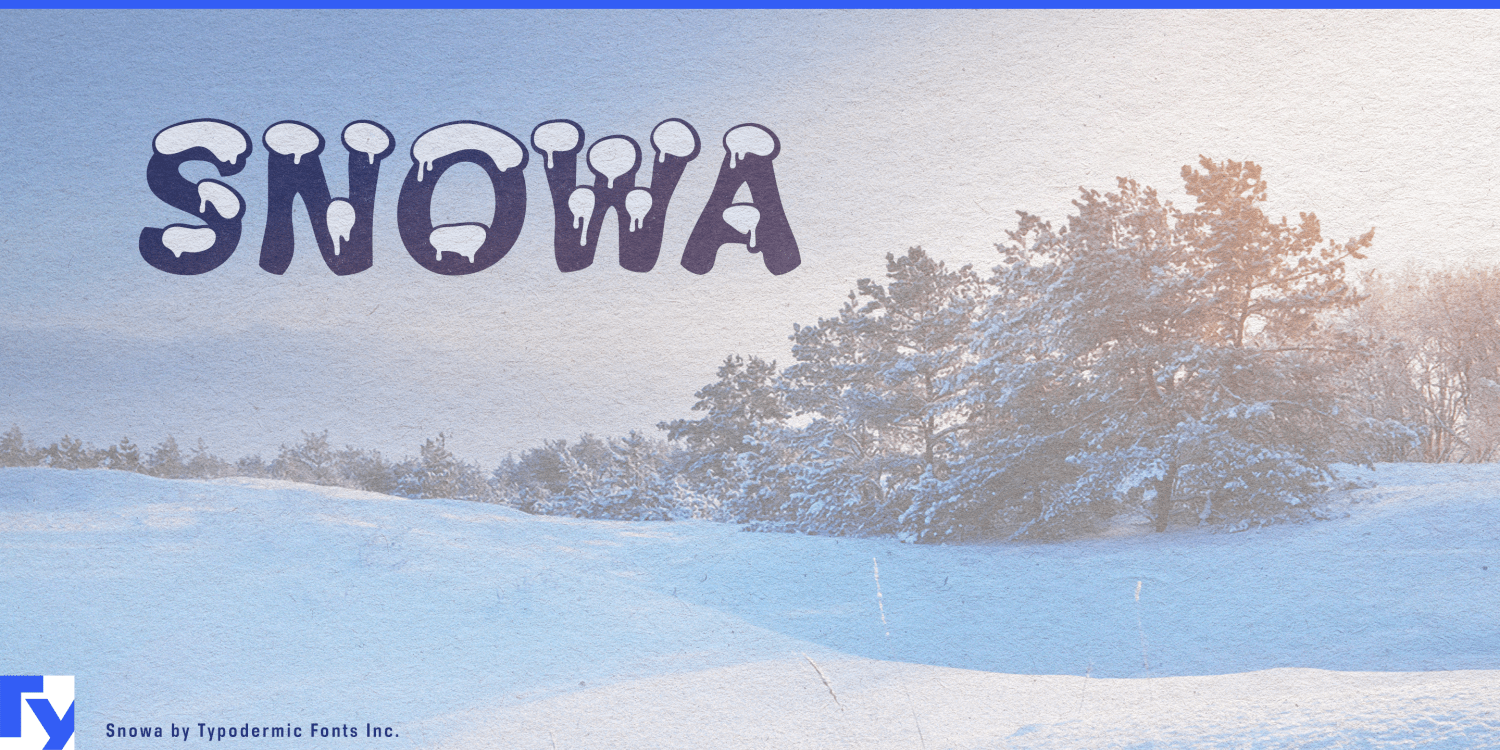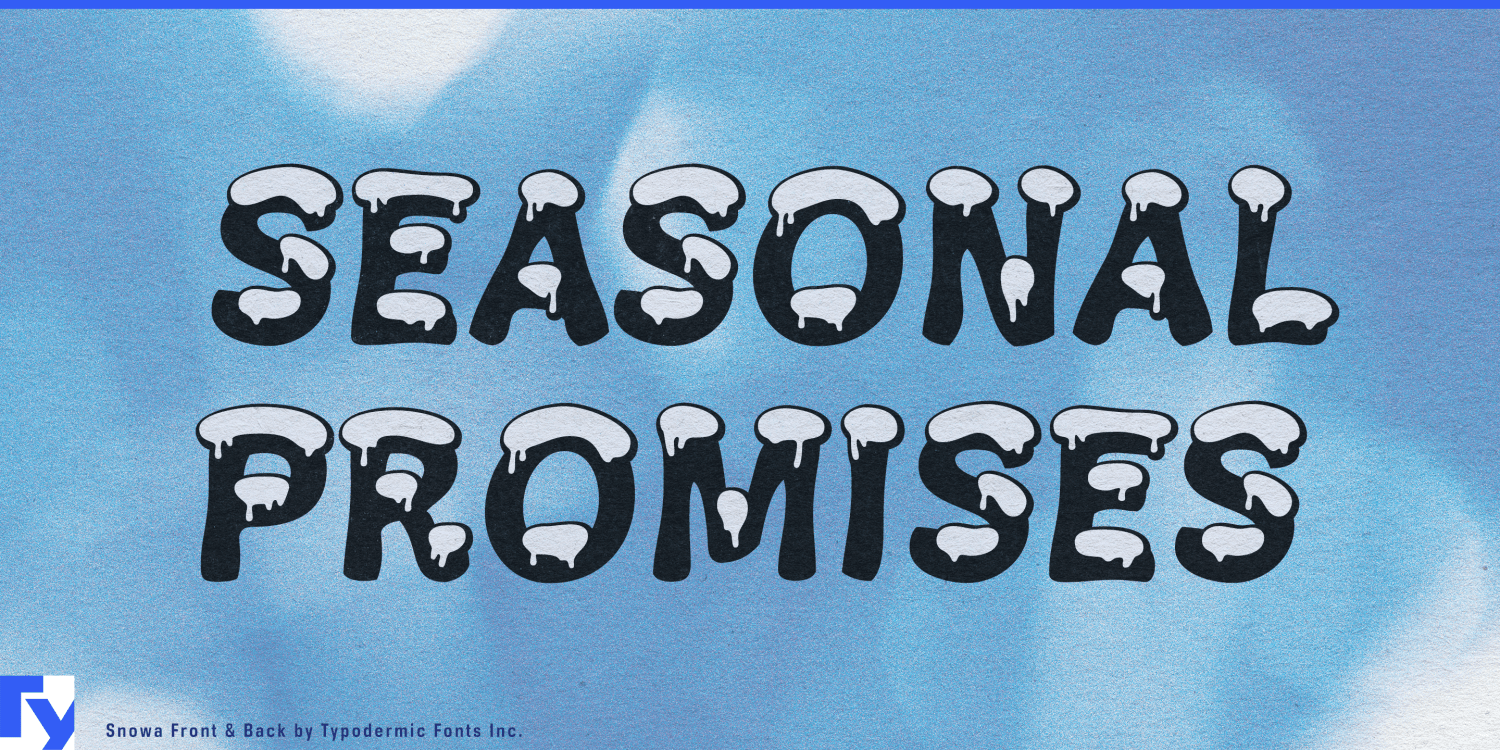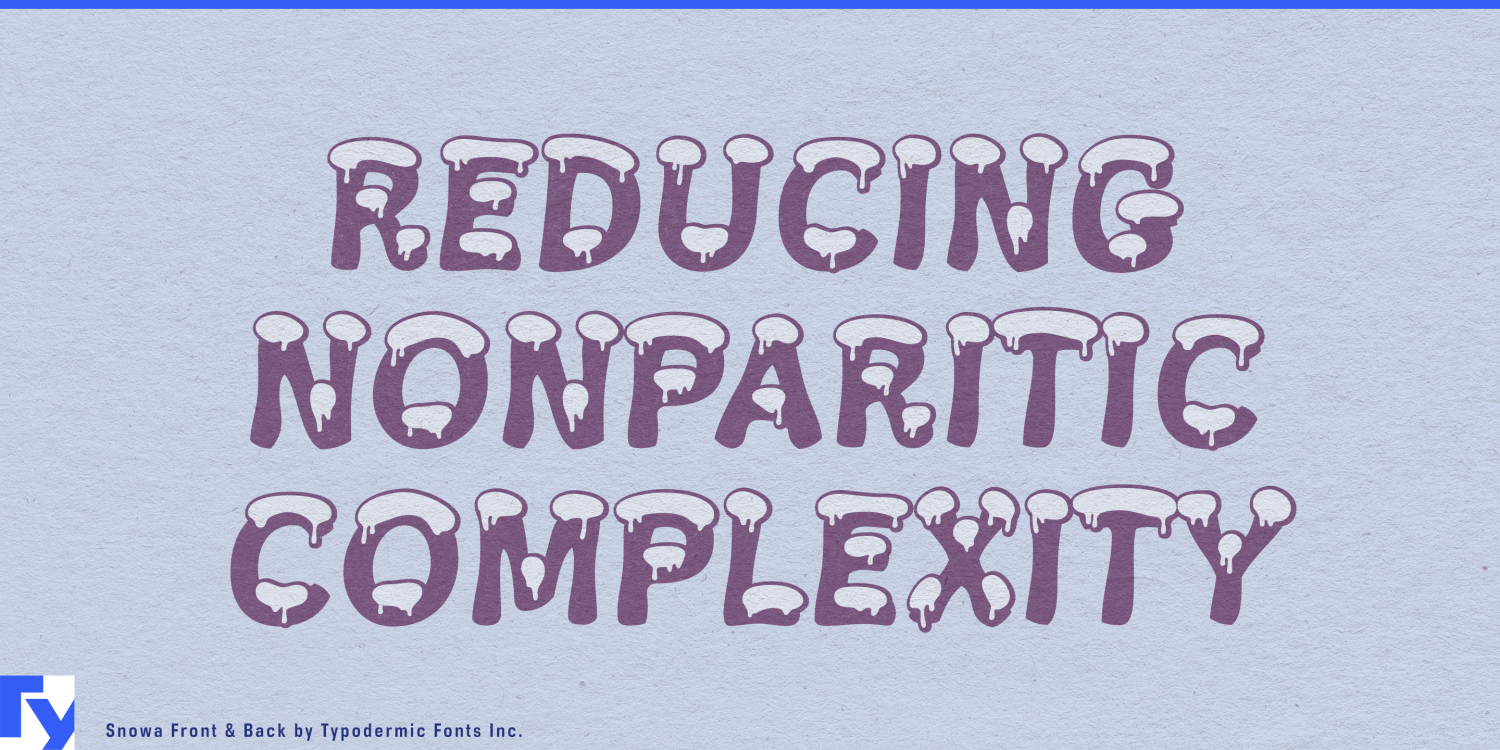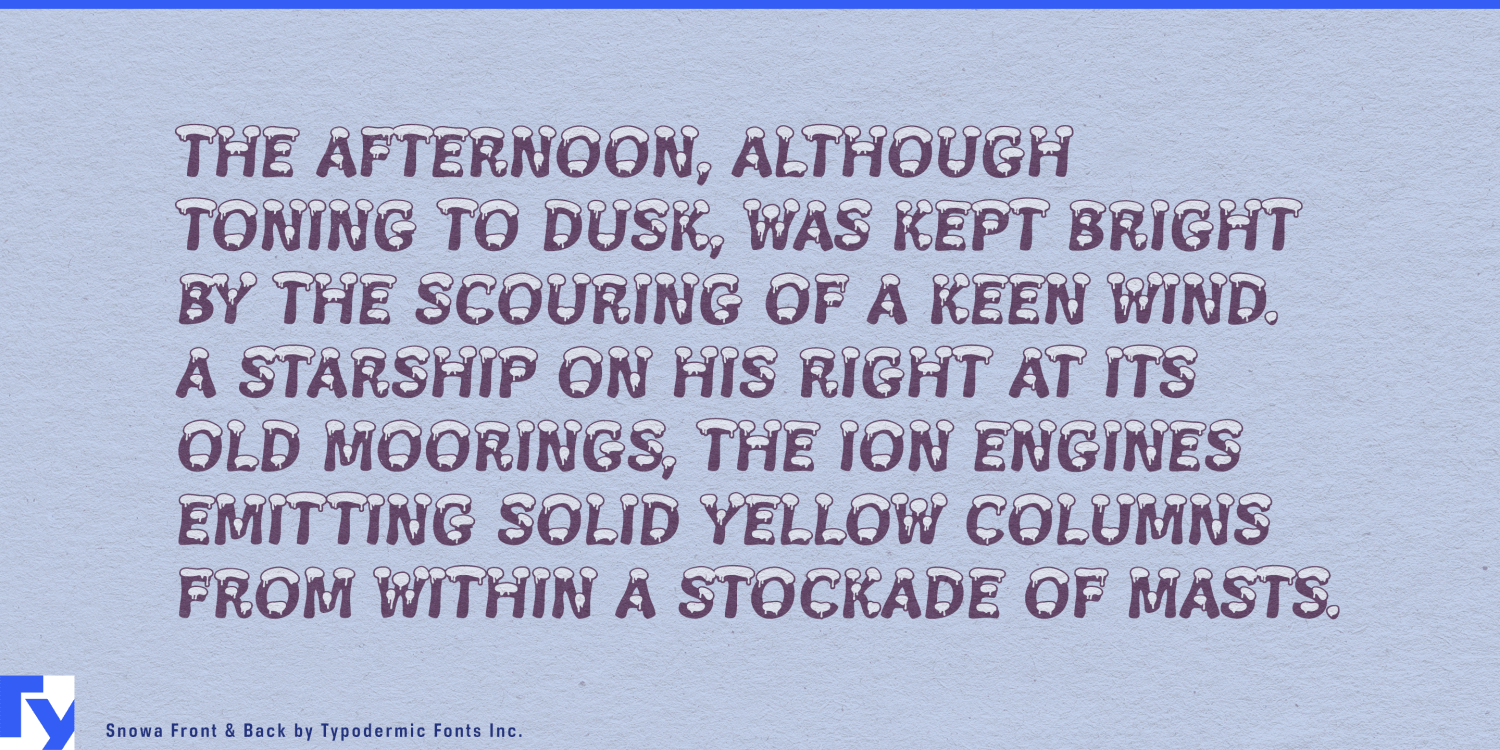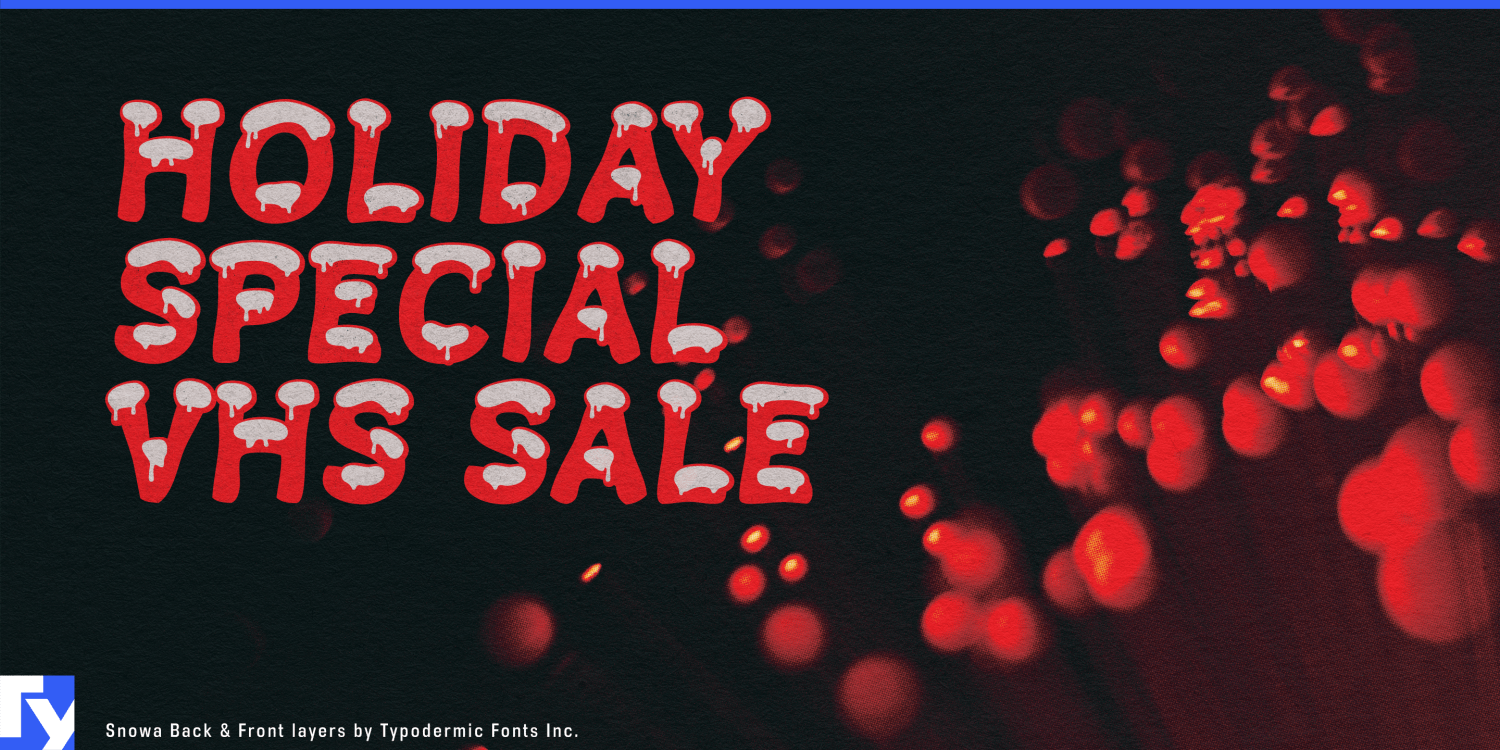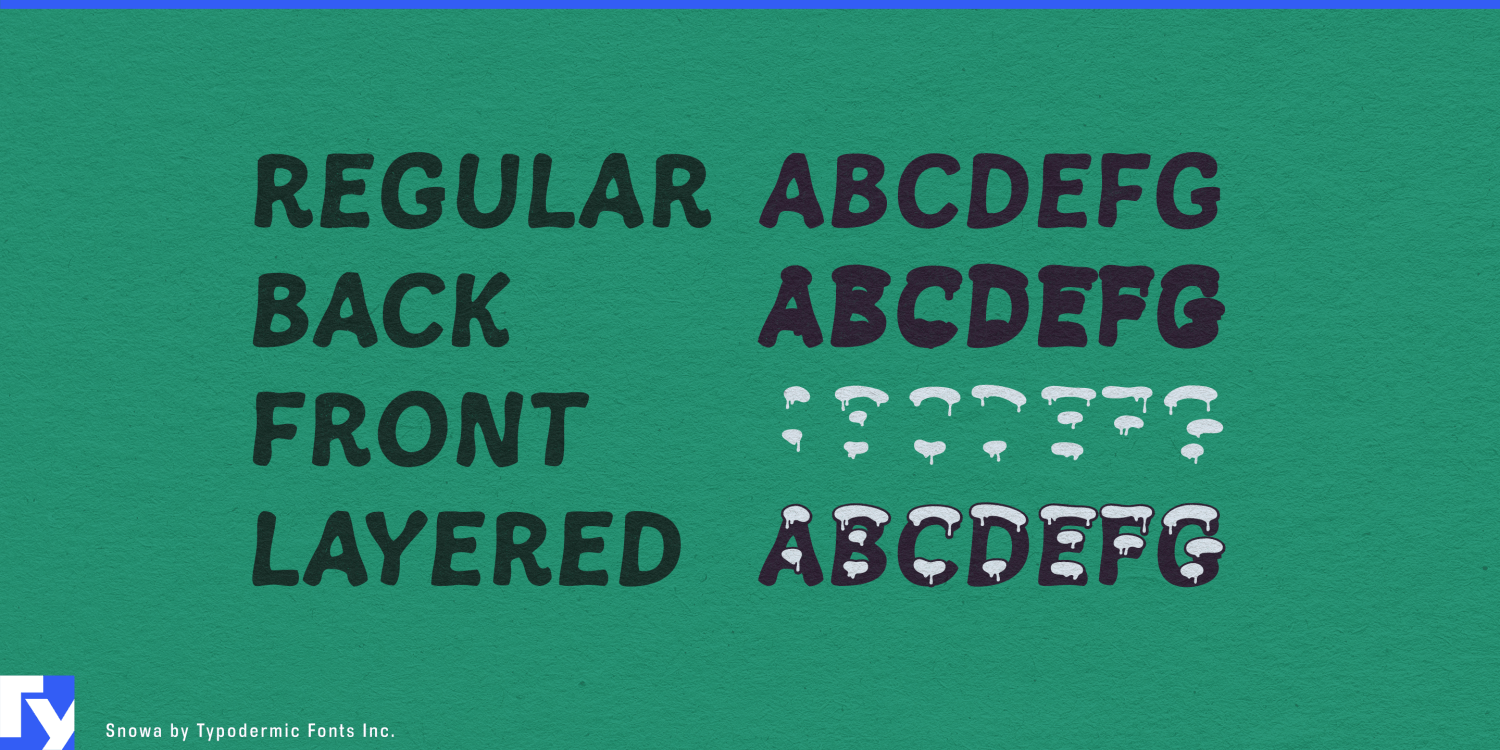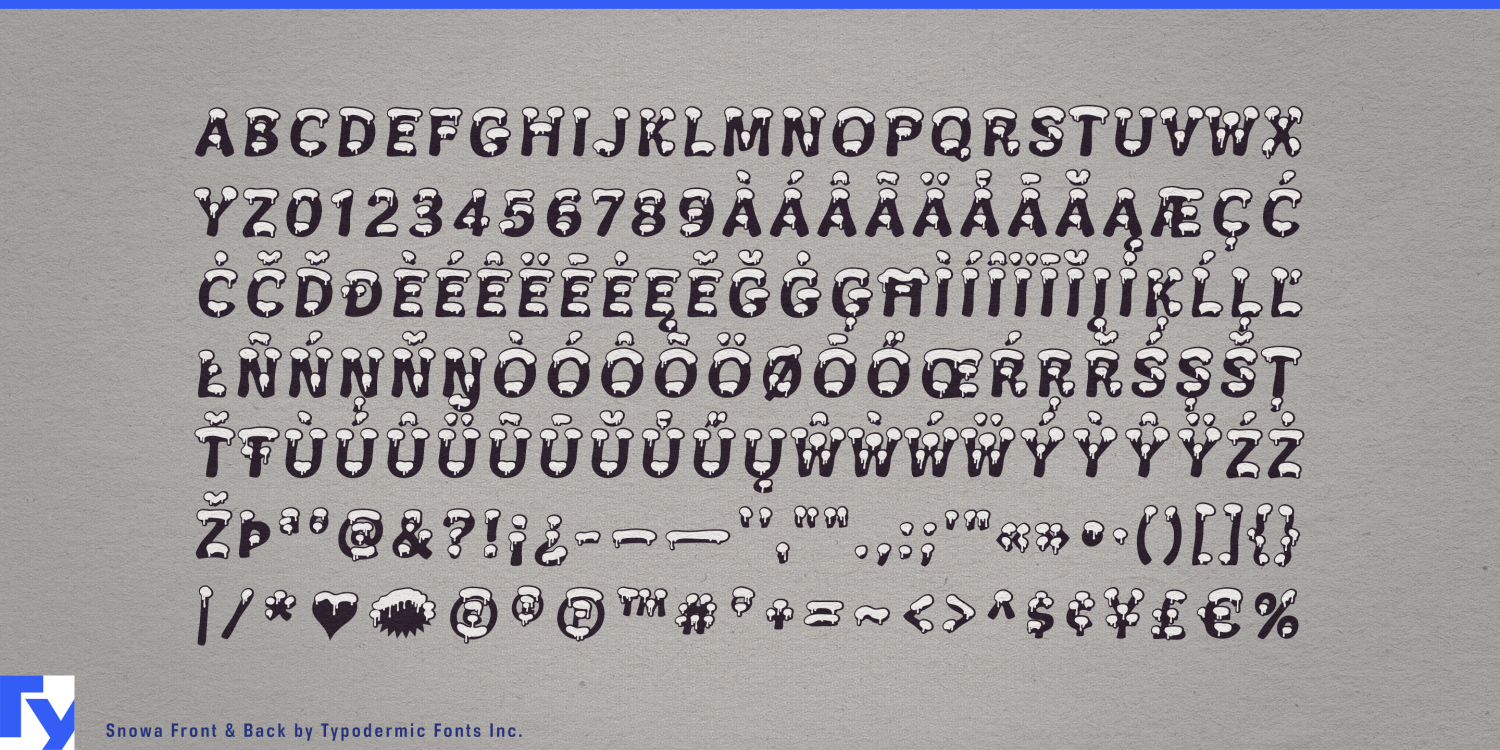
Snowa
A mountain destination may keep the same name all year, but the landscape around it changes completely. A snow-covered identity looks misplaced during hiking and cycling season; a neutral year-round wordmark can miss the excitement when winter arrives. Snowa separates the lettering from the weather, allowing one playful display system to move between clear ground and fresh cover.
Regular provides the snowless alphabet for year-round branding and advance campaigns. Snow supplies a complete one-color snow-capped treatment. Back contains the body of the letters, while Front isolates the snow covering so the two components can be stacked, recolored and produced independently. The name stays recognizable while the season changes around it.
That flexibility is especially useful for four-season mountain resorts. The same lettering can identify lodging, bike parks, hiking programs and summer events, then acquire snow for season-pass campaigns, ski-school graphics, lift-area displays, rental promotions and opening-week announcements. A conventional sans can handle schedules, directions, safety information and detailed condition reports; Snowa establishes the resort name, activity zone or seasonal headline.
The separate snow layer can also make weather part of the campaign. A destination might begin with Regular before opening, reveal Front after the first major snowfall, use Snow during peak season, then return to the snowless form for spring. Motion graphics can let snow settle onto the letters, disappear during a thaw or change color while the underlying title remains in place.
Snow parks, tubing centers, indoor snow facilities and family winter attractions offer another natural setting. Snowa’s soft, irregular construction makes activity-zone names, ticket screens, rental-counter graphics, merchandise and promotional video feel unmistakably snowy without drifting into aggressive extreme-sports design.
Christmas and winter-holiday campaigns can use the same approachable character. Retail destinations, holiday resorts and seasonal attractions may need snowy lettering without blackletter, ornament or theatrical excess. Snowa can carry winter-sale headlines, Christmas-market zones, festive resort packages and New Year snow events while retaining a broader winter identity.
The components can also correspond to separate production methods. Front might become white or reflective ink on outerwear, a contrasting embroidery pass on a beanie, flocking on a snowboard bag, raised varnish on packaging or cut vinyl on a resort window. Back can follow the colorway of a ski, helmet, snow boot or collaboration range.
Snowa is a display family for destinations, events and winter campaigns that need the same identity before, during and after the snowfall. Its separate snow component allows the weather to change while the name stays put.